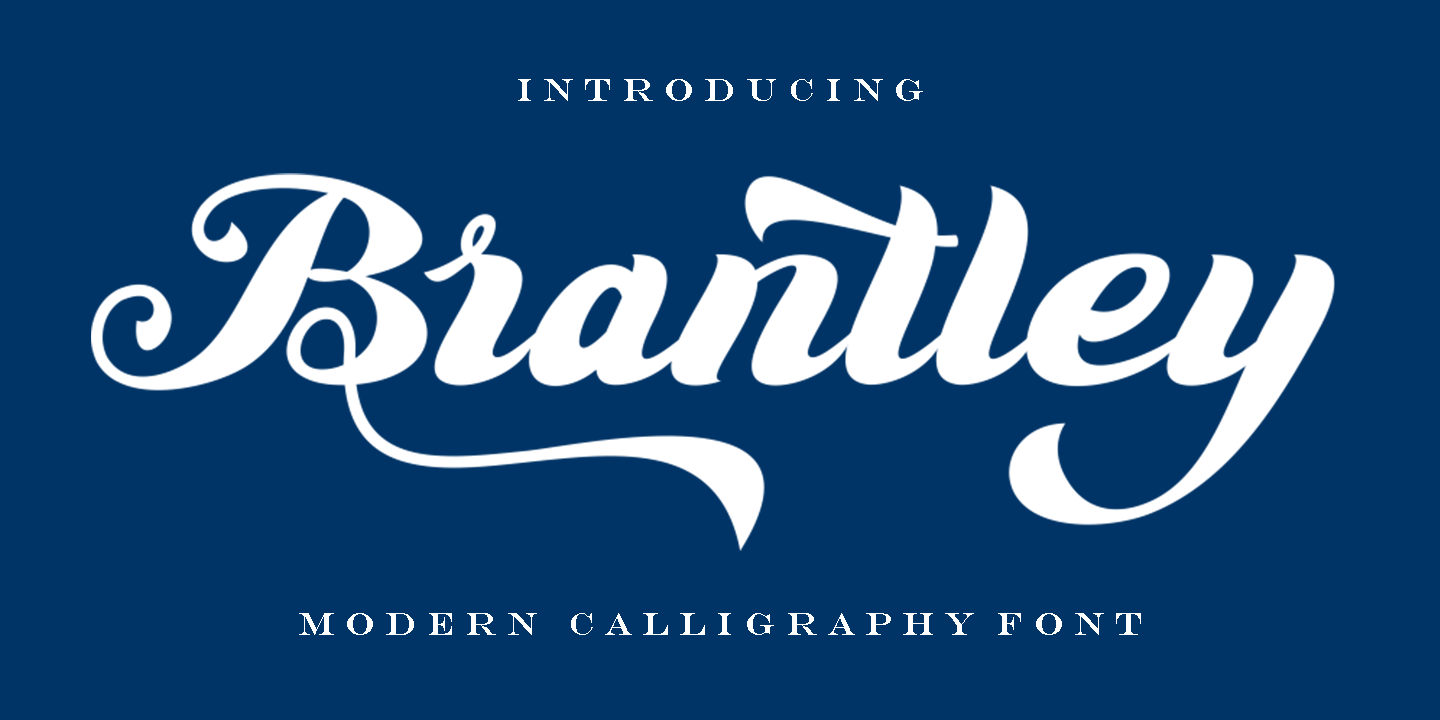
Brantley Script Font is perfect for elegant wedding invitations, luxury brand logos, sophisticated personal stationery, high-end restaurant menus, boutique fashion labels, premium beauty packaging, refined event planning, and graceful calligraphy projects.
Brantley Script Font is exciting because it captures the timeless elegance and sophisticated charm of classic handwritten calligraphy through its flowing character design that embodies the graceful artistry of traditional penmanship and the refined beauty of personalized script writing. Its script styling and elegant appeal make it the perfect choice for brands that want to communicate sophistication, intimacy, and the personal touch of handcrafted excellence.
Brantley Script Font family includes multiple calligraphic variations: Brantley Script Regular, Brantley Script Bold, Brantley Script Light, Brantley Script Flourish, Brantley Script Ornate, and Brantley Script Elegant, along with decorative swashes and calligraphic elements, providing designers with comprehensive tools for creating authentic script and elegant-themed brand experiences.
When exploring script typography solutions, Brantley Script Font Free Download stands out as the ultimate choice for designers working on luxury and elegant projects that require genuine calligraphic sophistication and refined appeal. This beautiful typeface embodies the essence of handwritten artistry while offering the technical precision that contemporary luxury brands and elegant service providers require. The font's script character and calligraphic authenticity create immediate connections with audiences who appreciate handcrafted beauty and personalized elegance.
Luxury professionals consistently turn to Brantley Script Font for projects requiring authentic calligraphic sophistication and powerful elegant appeal. Its expertly crafted letterforms feature script-inspired influences that work exceptionally well in both large-scale luxury venue displays and intimate personal stationery applications. The font's ability to convey grace and handwritten beauty while maintaining strong brand recognition makes it invaluable for comprehensive identity systems in the luxury services, wedding planning, and elegant lifestyle sectors.
Whether you're developing luxury brand identities, creating elegant event marketing materials, or designing sophisticated personal communications, Brantley Script Font delivers the authentic script character and refined appeal that resonates with audiences who appreciate handwritten elegance and personalized luxury. Its calligraphic significance and graceful design ensure your projects capture the intimate beauty of handcrafted script while maintaining contemporary professional standards that attract discerning luxury consumers and elegant lifestyle enthusiasts.